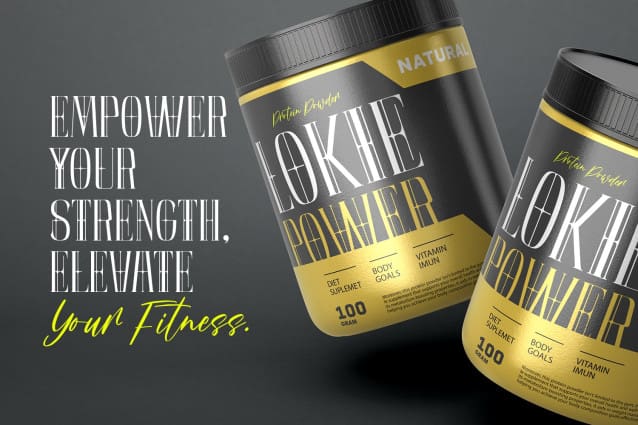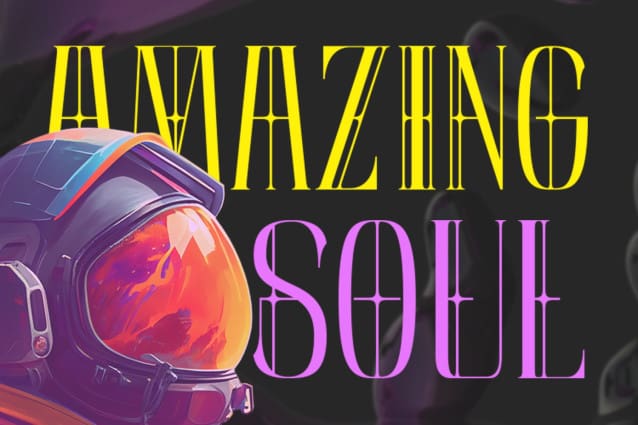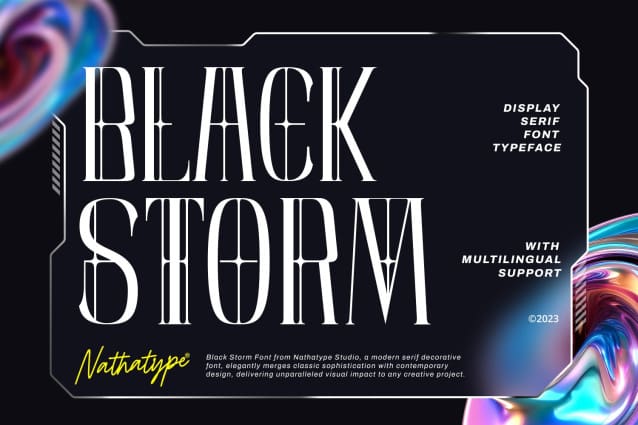
Black Storm Font
Black Storm Font, a captivating display serif font, commands attention with its bold presence and refined aesthetics. It’s a versatile tool that empowers your projects with a sense of authority and intricate detailing.
The characters in Black Storm are boldly large, ensuring a striking visual impact suitable for attention-grabbing designs. The stable letter size contributes to a balanced and authoritative aesthetic. What elevates BlackStorm to new heights is the thoughtful incorporation of additional lines and ornaments, meticulously placed to create a harmonious blend of structure and embellishment.